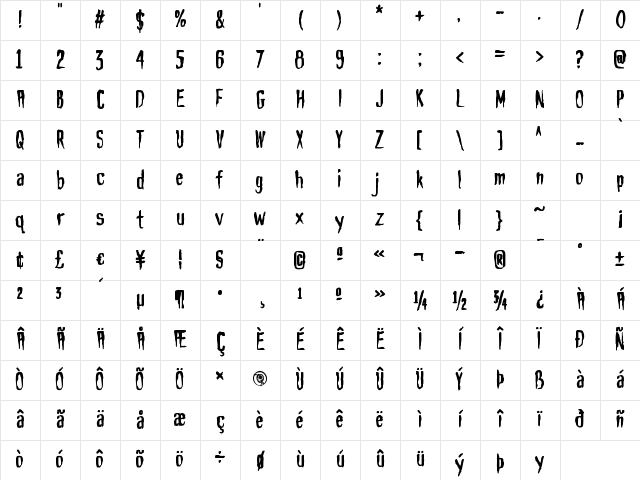
Haunt AOE Regular Free Font
Haunt AOE Regular
Design Context for Haunt AOE
Haunt AOE is a composed and adaptable typeface that performs quietly and consistently across a wide range of design contexts.
Pro Tip: Use Haunt AOE in both headline and body roles to test its range before committing to a single application.